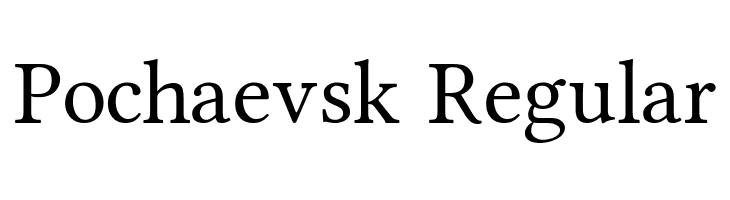
( Copyright 2025 The Pochaevsk Project Authors (https://github.com/slavonic/Pochaevsk.git) )
Traditional serif font with moderate contrast and elegant proportions.